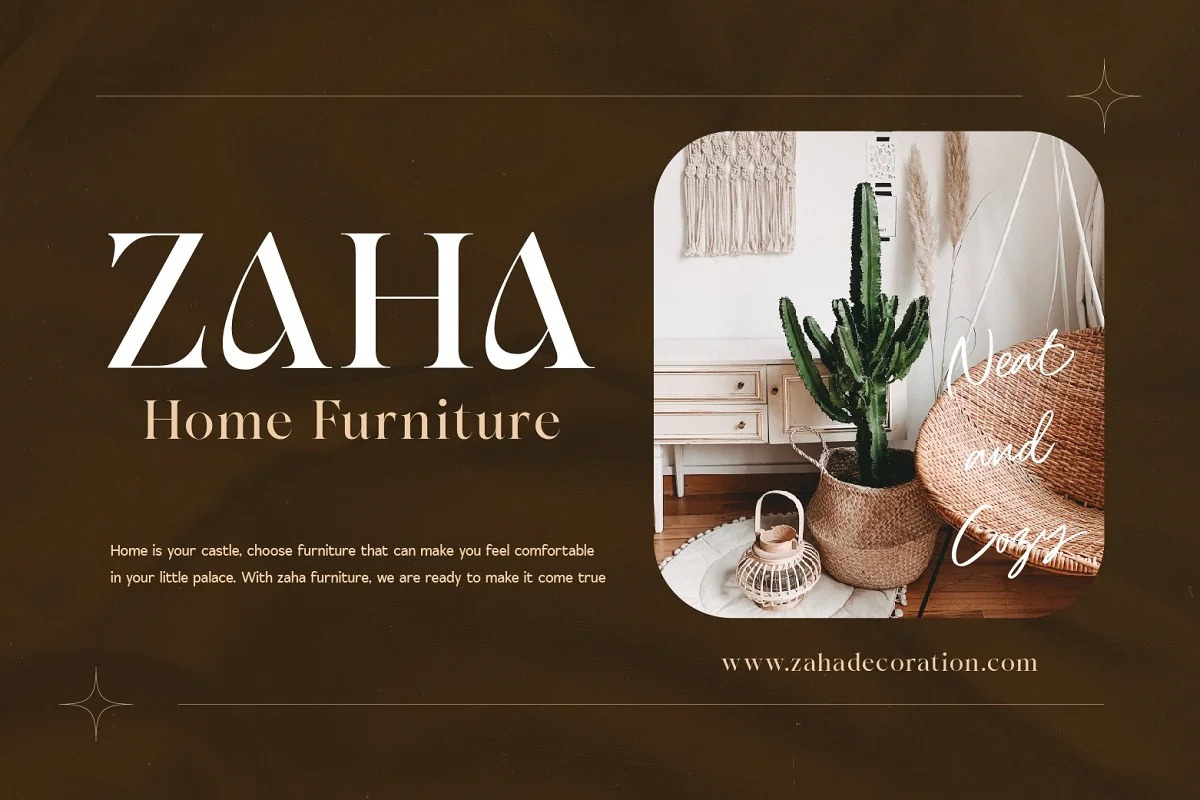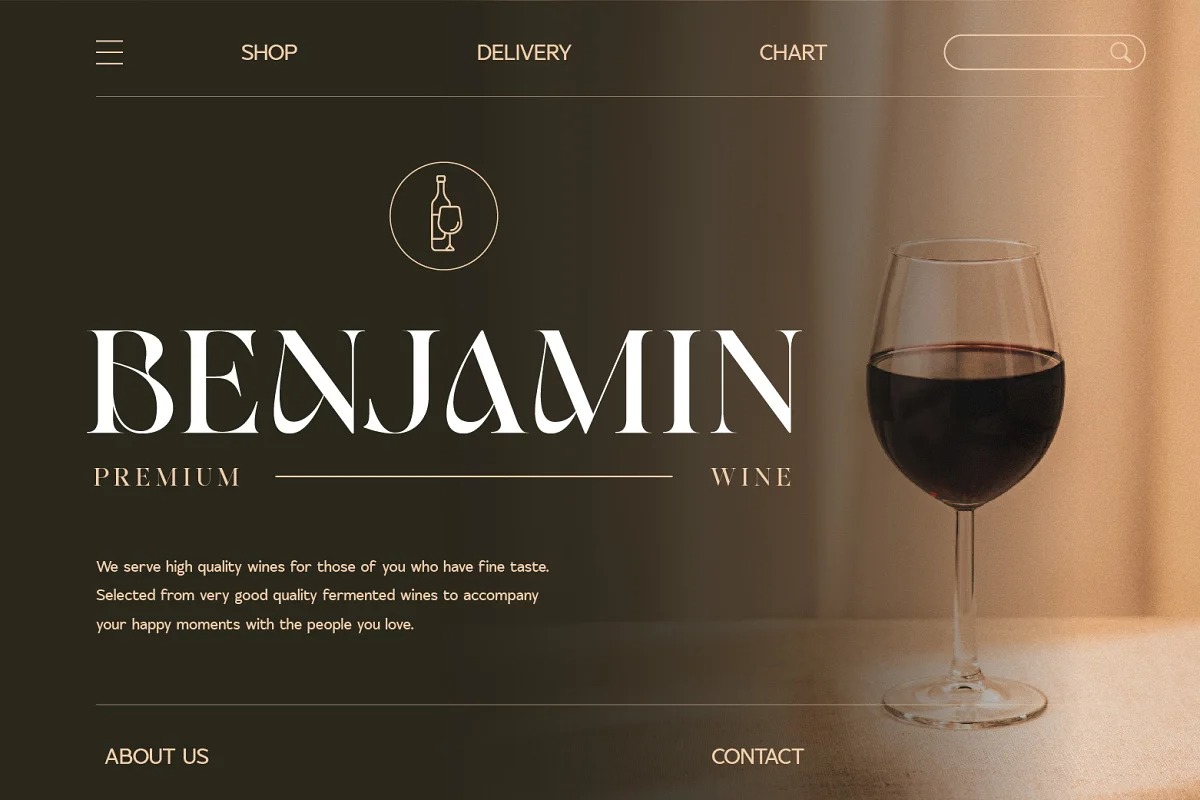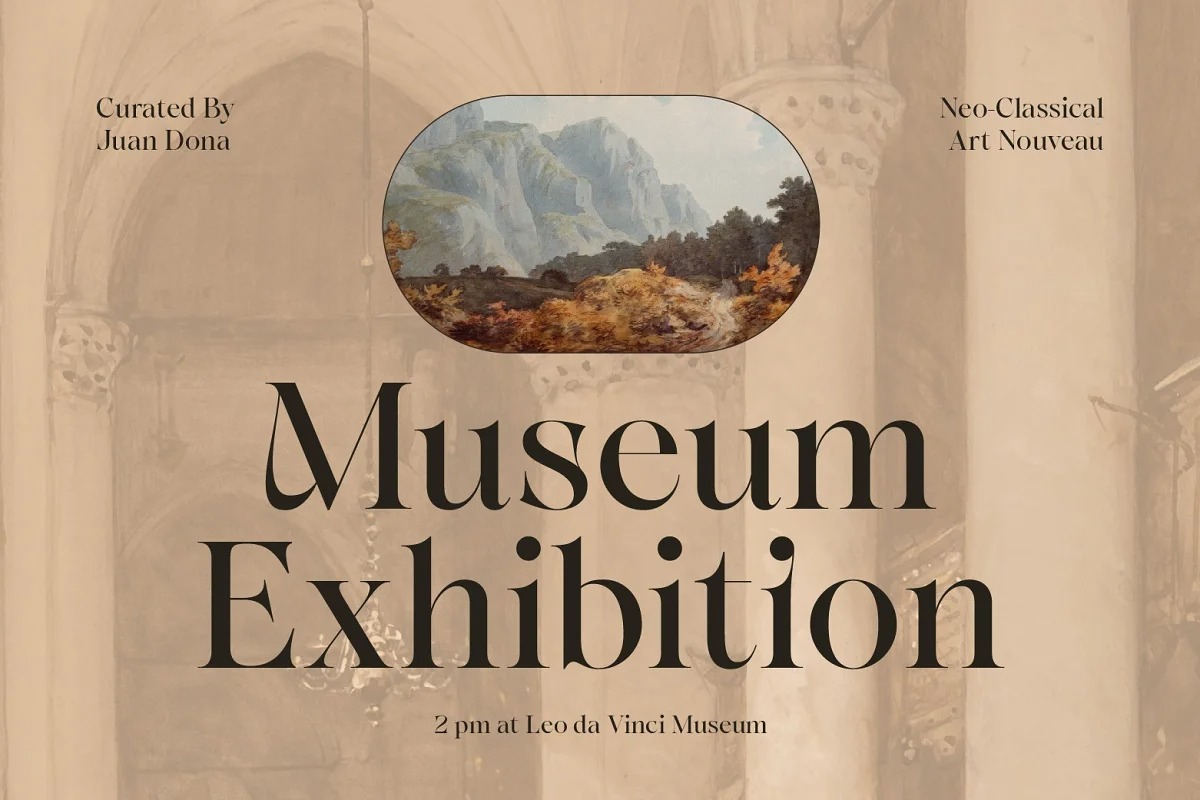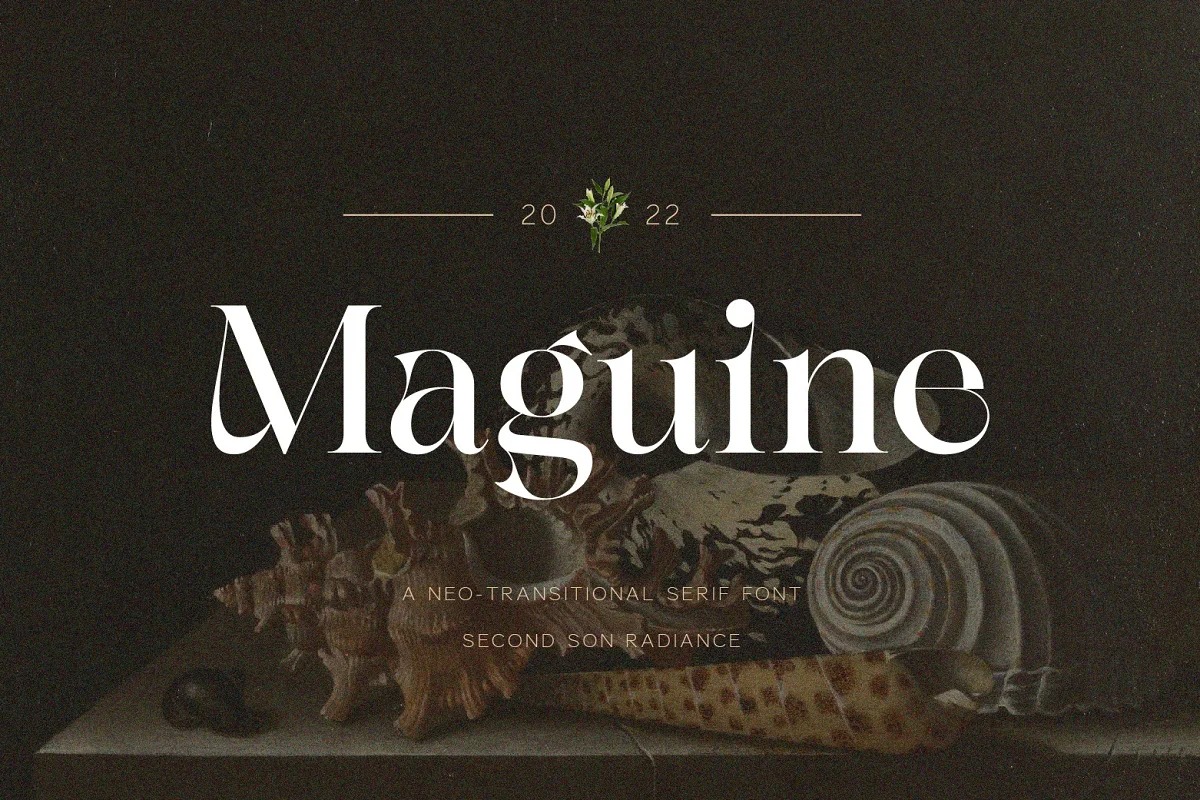
Maguine Serif Font is a gorgeous serif typeface that is both classically elegant and modern. Comes with some alternates and ligatures, so you can combine it to make a perfect typography design. It is perfect for your up coming projects. Such as luxury logo and branding, classy editorial design, woman magazine, cosmetic brand, fashion promotional, art gallery branding, museum, historical of architectural, boutique branding, stationery design, blog design, modern advertising design, card invitation, art quote, home decor, book/cover title, special events and any more.